Daycare Branding Font: The Best Fonts to Build a Warm Brand Image
In the childcare business, especially daycare, visual appearance plays an important role in attracting potential consumers. Choosing the right daycare branding font to build brand identity is an often-overlooked element that significantly impacts the business.
A font is not merely a letter but a representation of a brand’s personality, first impression, and parents’ trust of the services. By choosing the most suitable daycare branding font, you can create a cheerful, safe, and warm impression. It is exactly what parents would expect from a daycare.
Let’s explore the best font inspiration to create an attractive and memorable daycare brand at first sight!
Snack Bowl
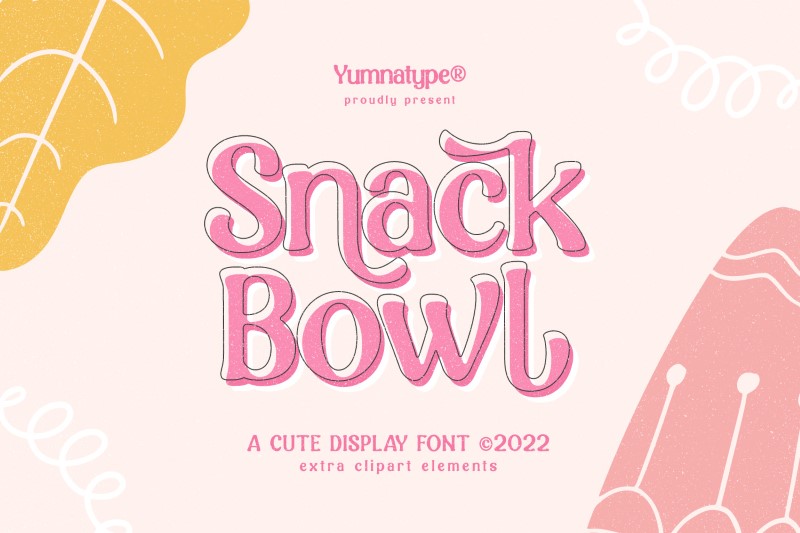
Snack Bowl is a fun and cute daycare branding font with bold yet friendly characters, perfect for headers and titles. Its playful font style creates a warm and engaging impression, ideal for children-themed branding. This font features ligatures, stylistic sets, and swashes for more flexible design exploration. In addition, with 15 bonus illustrations, Snack Bowl helps create more vibrant, creative, and memorable visuals.
Hug Shack
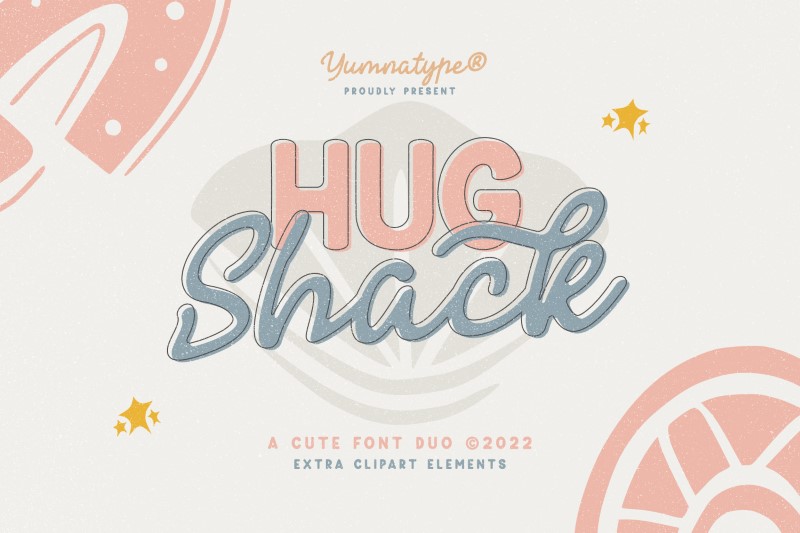
Beautiful and easy to combine, Hug Shack is a font duo that instantly enhances your design look. The combination of a charming and cheerful script with a modern display font creates a warm and attractive visual balance. This font is suitable for daycare branding needs, such as logos, signboards, posters, and promotional materials. Equipped with stylistic sets, ligatures, and bonus clipart, Hug Shack makes its visual appearance feel more alive and adorable.
Sweet Kitten
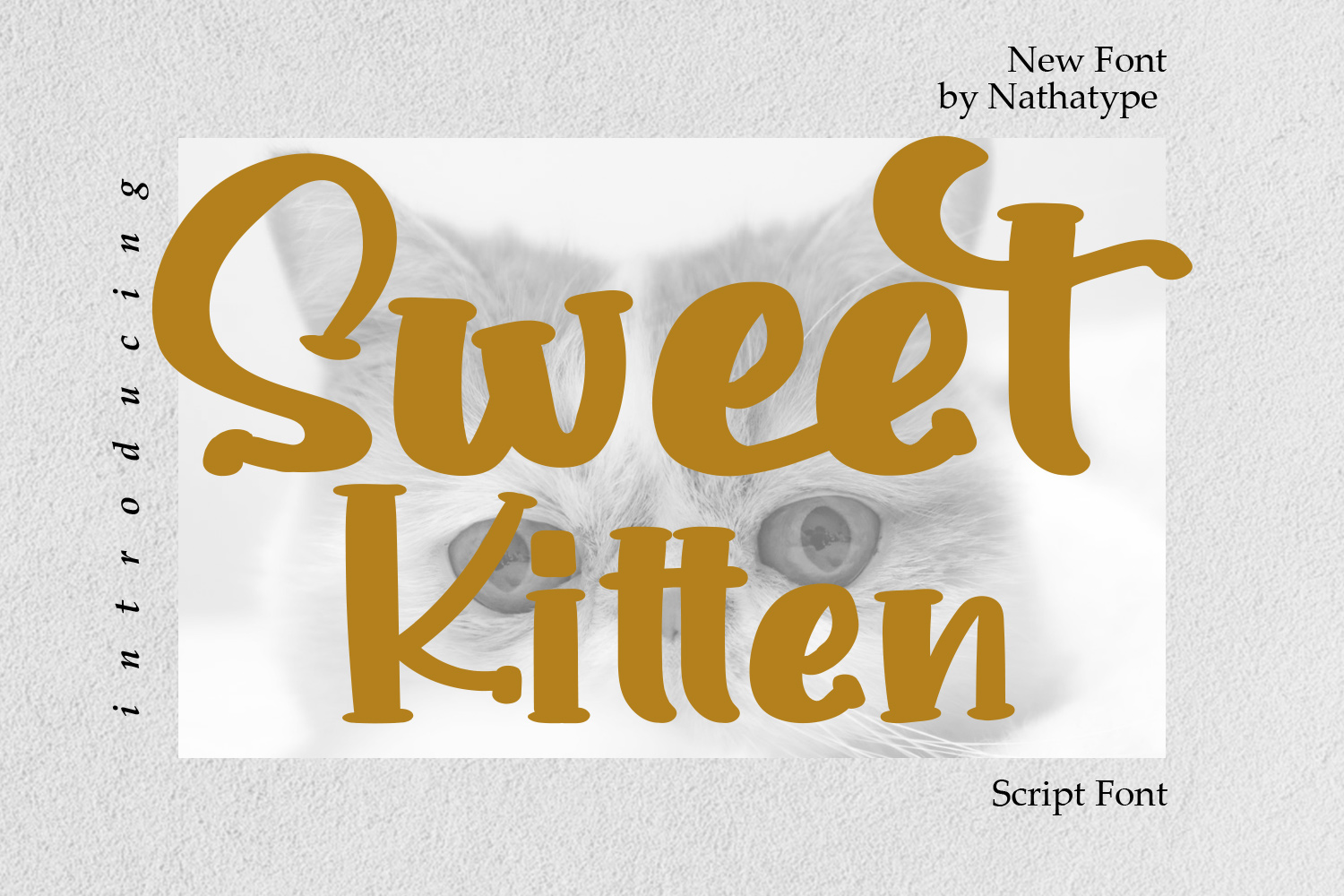
Offering a gentle and sweet touch in every design, Sweet Kitten is a daycare branding font that suits the warm and friendly impression in daycare brands. The elegant handwritten style has a warm, unique, and personalized character that is ideal for strengthening daycare identity in various design needs.
Honey Ponds
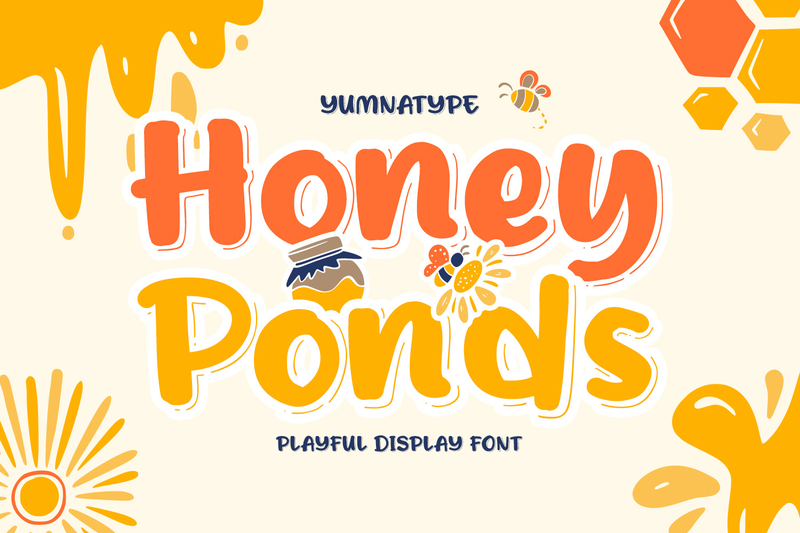
Featuring a simple yet appealing touch, Honey Ponds is a display font with bold, rounded, and clean, friendly letterforms. Its playful design is perfect for daycare logos, signage, and promotions, creating a friendly, cheerful, and clear look. Honey Ponds also includes clipart bonus that enhances the design, making it feel more lively and cheerful.
Sticky Written
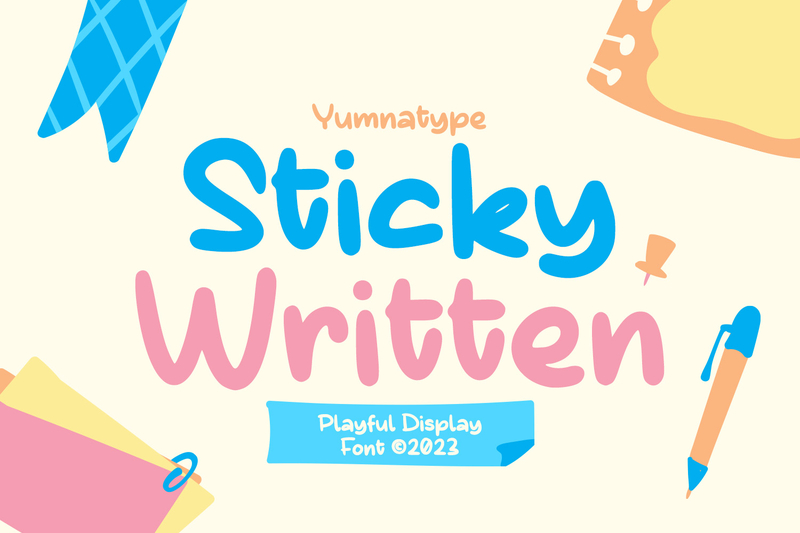
The rounded, soft, and playful font style gives Sticky Written a playful and cheerful feel to every design. This font boasts a character that is light, flowing, and eye-catching, reminiscent of soap bubbles. Its font style is ideal for daycare branding needs such as child-friendly logos, signage, and promotional posters or banners, creating a more lively, cheerful, attractive, and engaging look.
Fresh Spirit
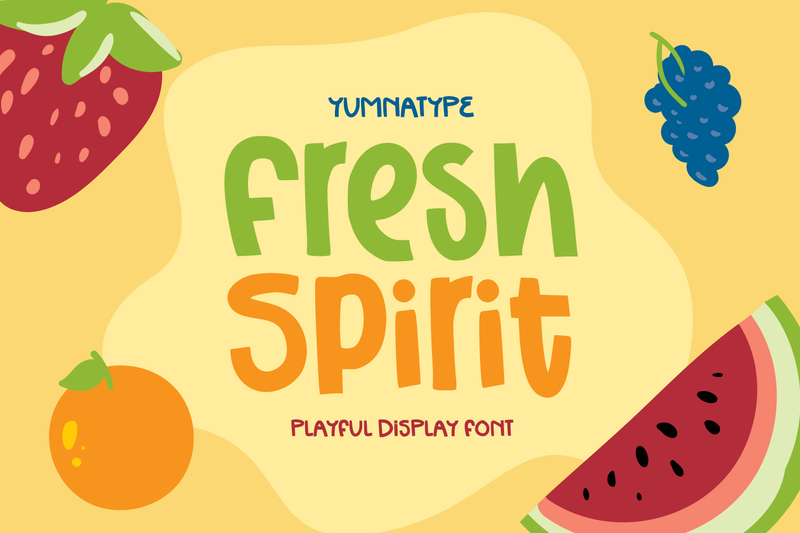
The Fresh Spirit font looks energetic and cheerful, suitable for a daycare brand that emphasizes children’s activity and creativity. With the rounded letterform and smooth curves, this font conveys a friendly, playful feel that is easy to like. Matching bonus clipart complements its unique characters, creating an engaging, consistent, and cheerful visual appearance.
Maffa Latte
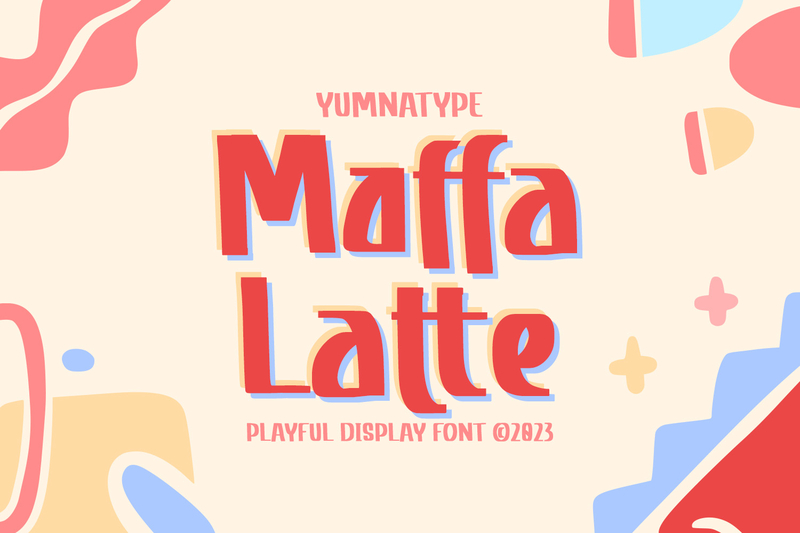
Maffa Latte is a daycare branding font with a unique, fun, and cheerful display style. The combination of “tt” and “ff” in this font features harmoniously unified ligatures, resulting in a smoother, neater, and more aesthetic look. With its simple letterform, balanced proportion, and clear contrast, Maffa Latte makes the design more vibrant and attractive. Plus, it offers a clipart bonus to enrich the consistent appearance.
Grass Jelly
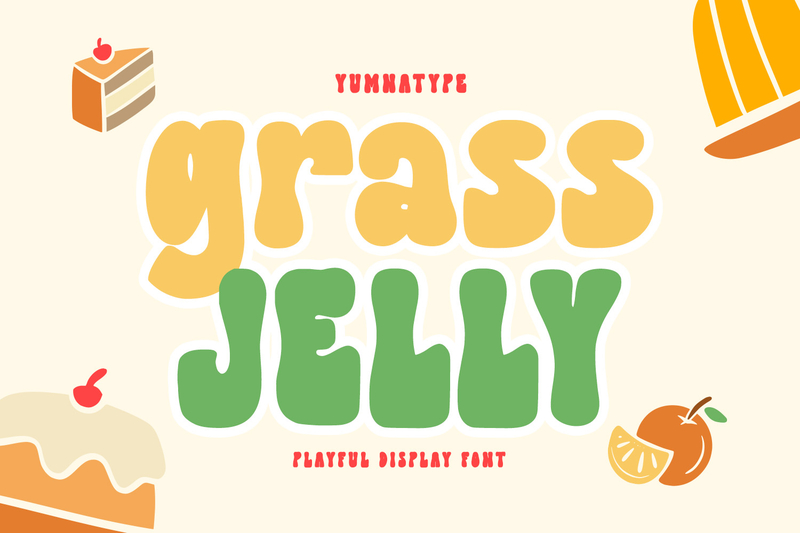
Grass Jelly is a bold, rounded-edged display font that evokes an artistic, creative, and playful feel. Its bold strokes offer strong contrast, designed to capture attention and leave a lasting impression. This font is ideal for use in various daycare visual identity designs, from posters and logos to children’s playground decorations.
Salty Milky
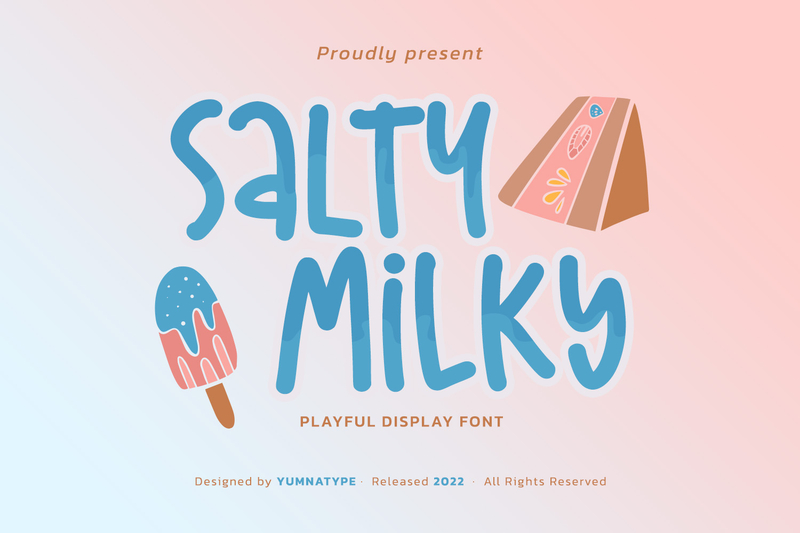
As a daycare branding font, Salty Milky offers rounded yet slim, cheerful, and friendly letter characters. Its varied form gives a playful and artistic feel that easily attracts children’s attention. Besides, this font features a clipart element that strengthens the visual identity, making the design feel more vibrant. Therefore, Salty Milky is perfect for promotional needs that prioritize a cheerful and friendly atmosphere.
Monkis Bloom
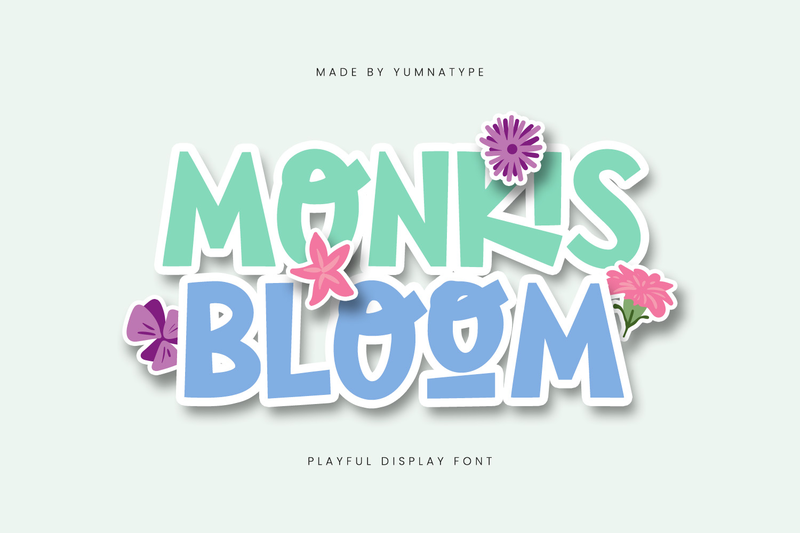
Expressive and striking, this font is suitable for daycare brands that seek an active and energetic impression. Monkis Bloom offers a playful, geometric, firm letterform that creates a warm yet bold feel. The bold letterform ensures the appearance is clear and attractive in various media. Moreover, this font offers ligatures with unique visual variations that strengthen the design identity.